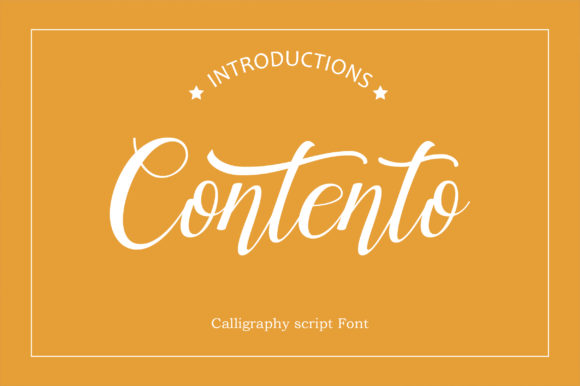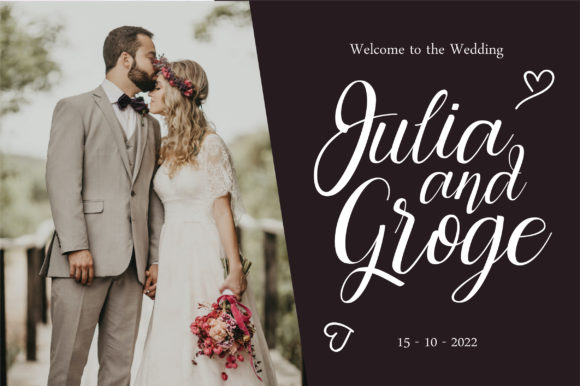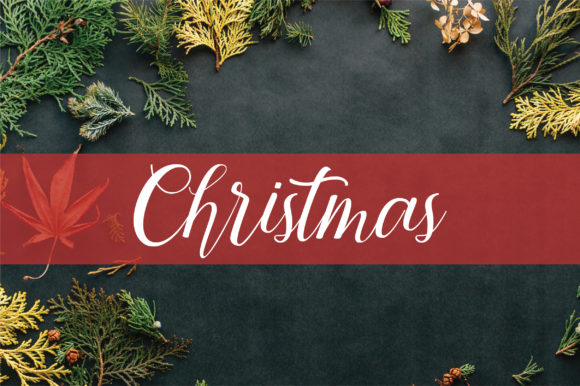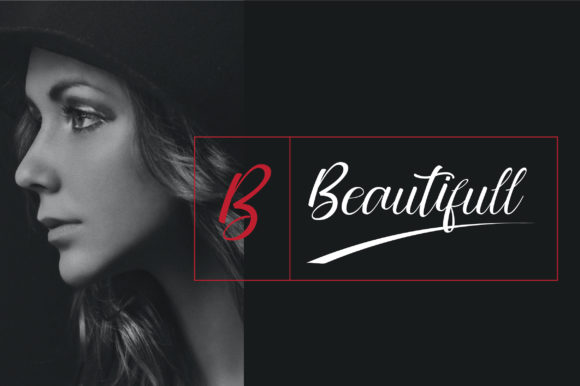
Contento Font
About Contento Font
Contento is a lovely, round lettered handwritten font, designed with the help of a brush pen. Its timeless feel makes this font adept to both formal and non-formal projects.